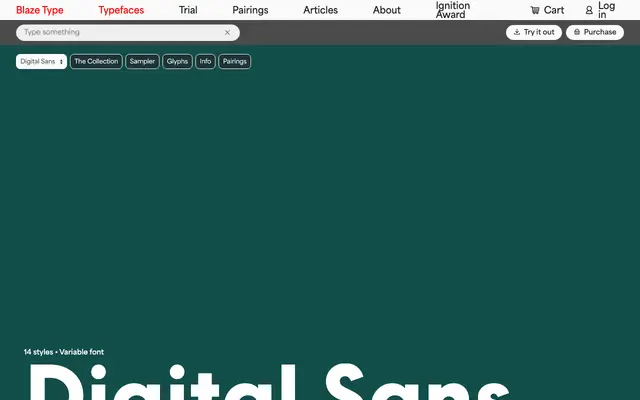
Digital Sans specimen from Blaze Type
A geometric sans in seven weights with variable font support, drawing on Futura's construction while introducing alternate glyph sets for tonal flexibility.
Built on circular geometry in the tradition of Futura, Digital Sans offers 14 styles from Thin to Black with matching italics, all available as a variable font. The family distinguishes itself through two alternate glyph sets, one with diagonal cuts and one with vertical cuts and sharp angles, letting designers shift between a neutral and a more angular character. Latin and Greek are covered, making it workable across branding, headlines and body text on screen and in print.
Explicitly inspired by Paul Renner's Futura, Digital Sans is built on geometric construction principles with circular forms and minimal stroke contrast, characteristic of the geometric sans subcategory.